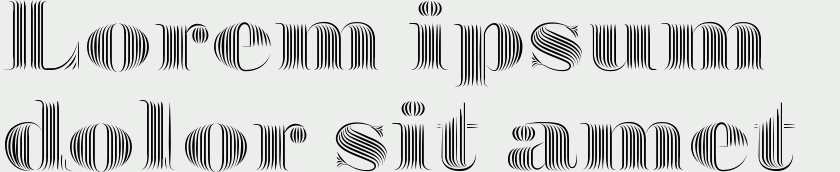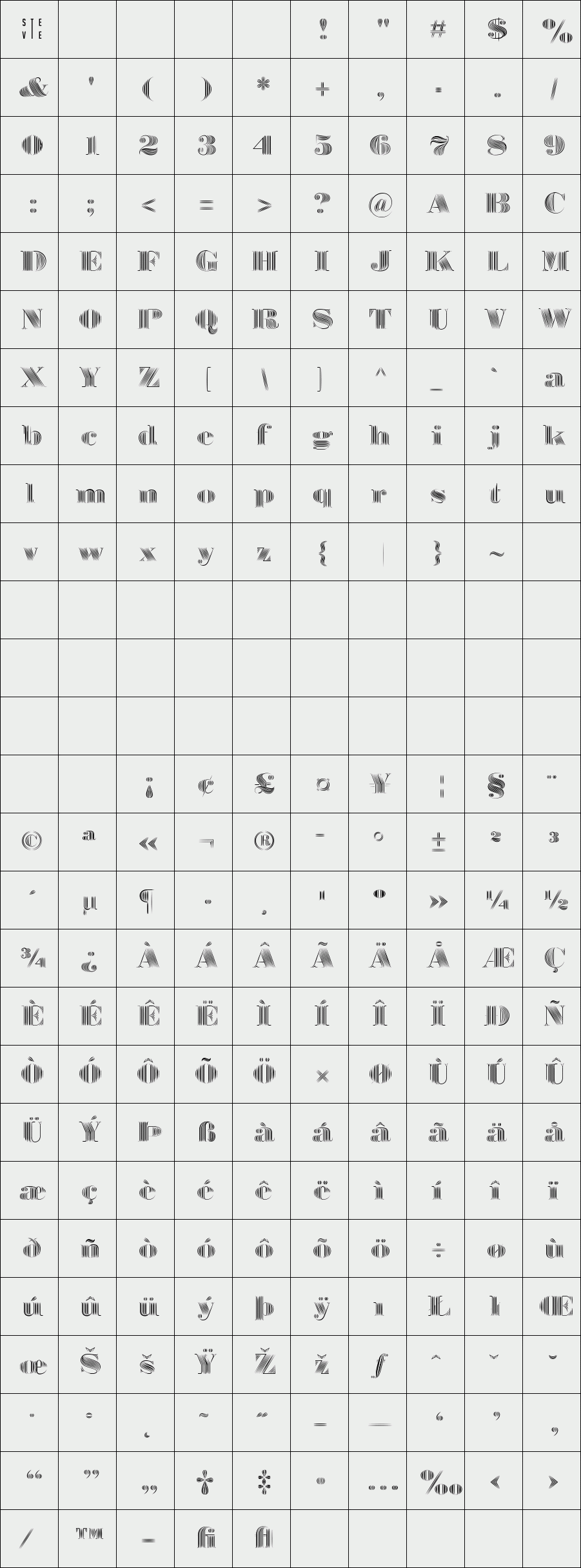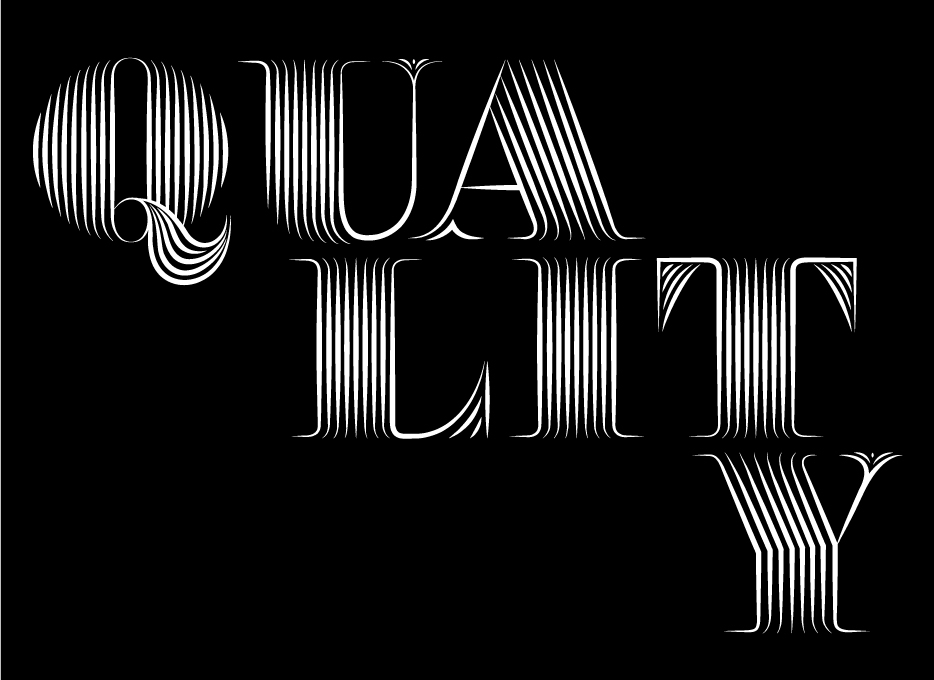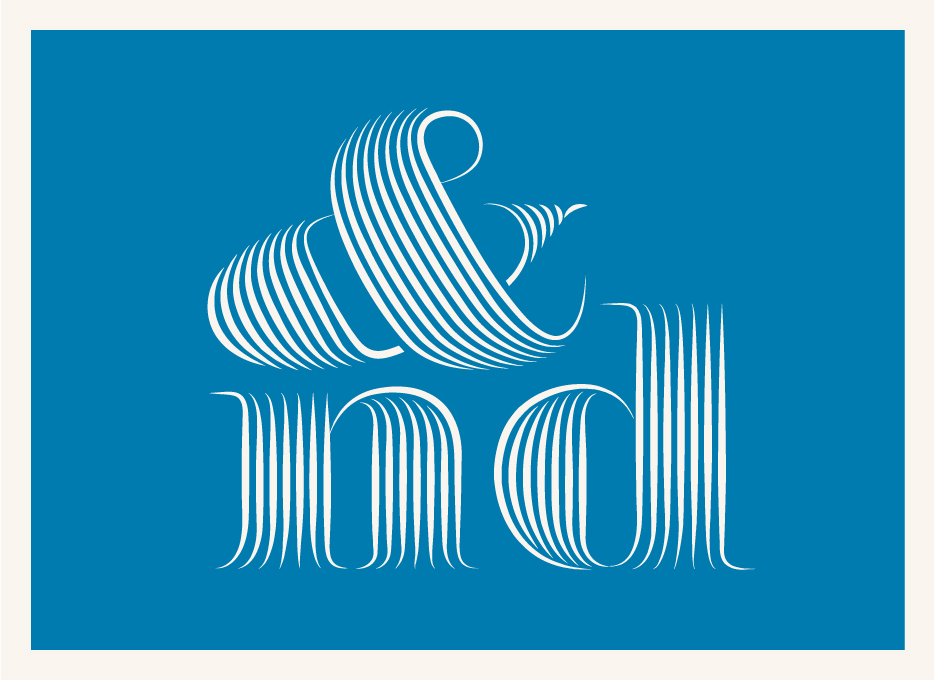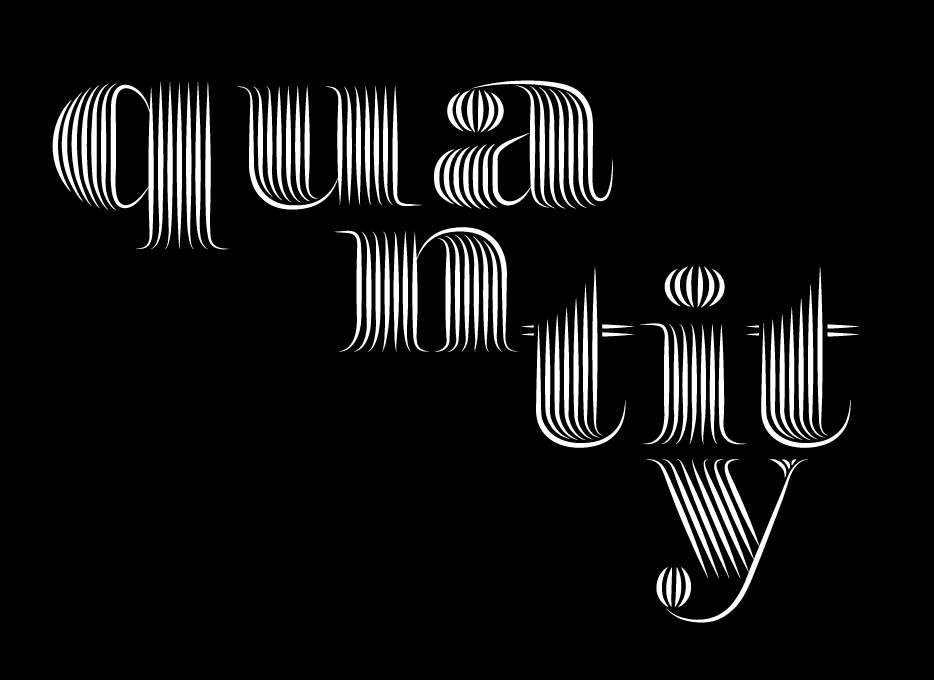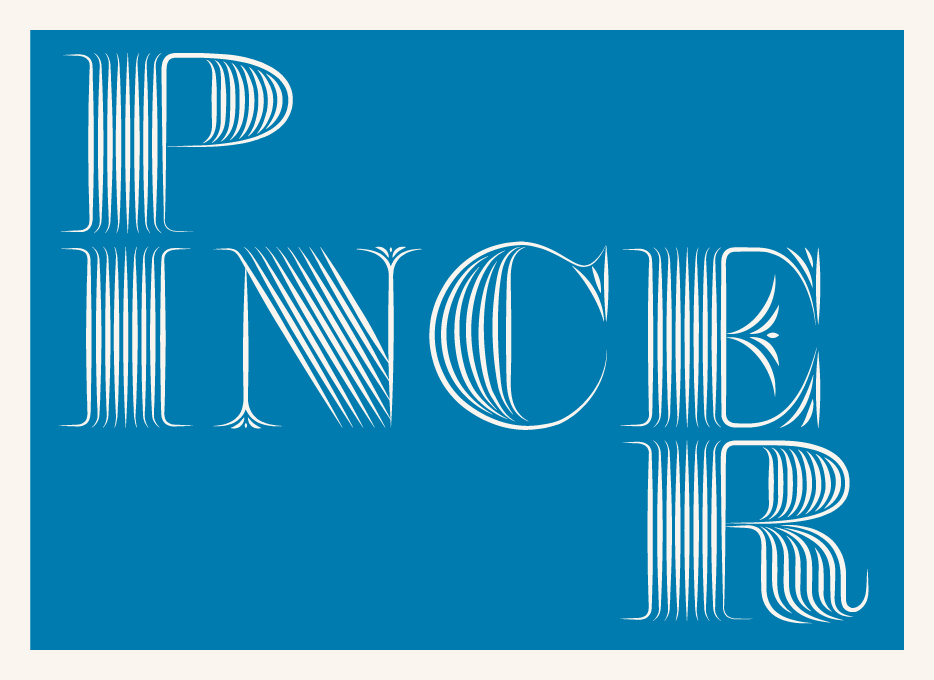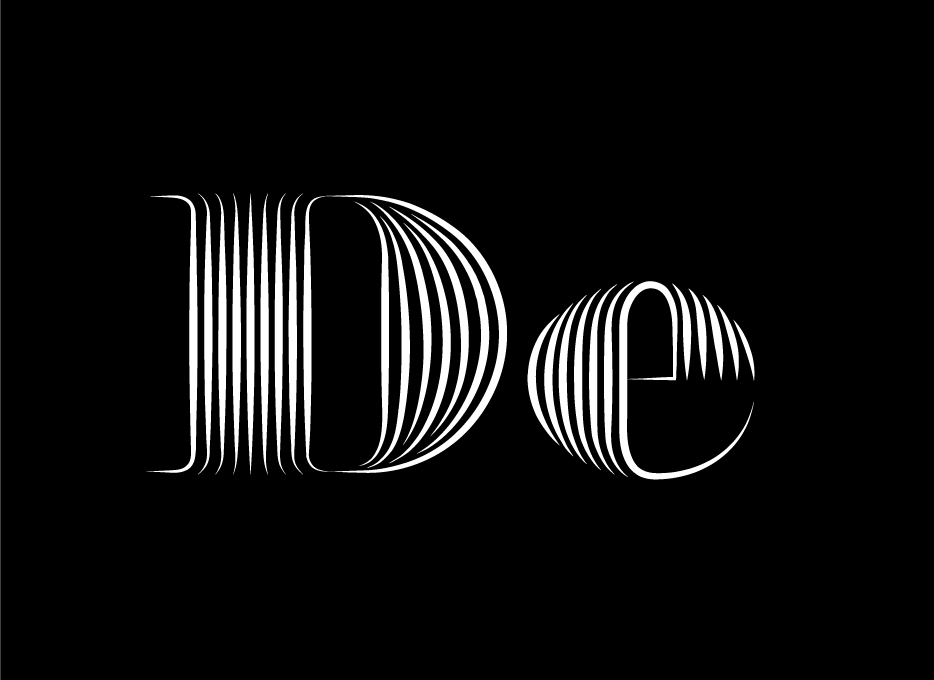
Pincer De
Pincer De is an intricate display / Didone serif font perfect for creating both elegant and memorable headlines. The font has one weight and includes all uppercase, lowercase, numeric, special and most euro standard glyphs.
Designer: Steve Hanzic